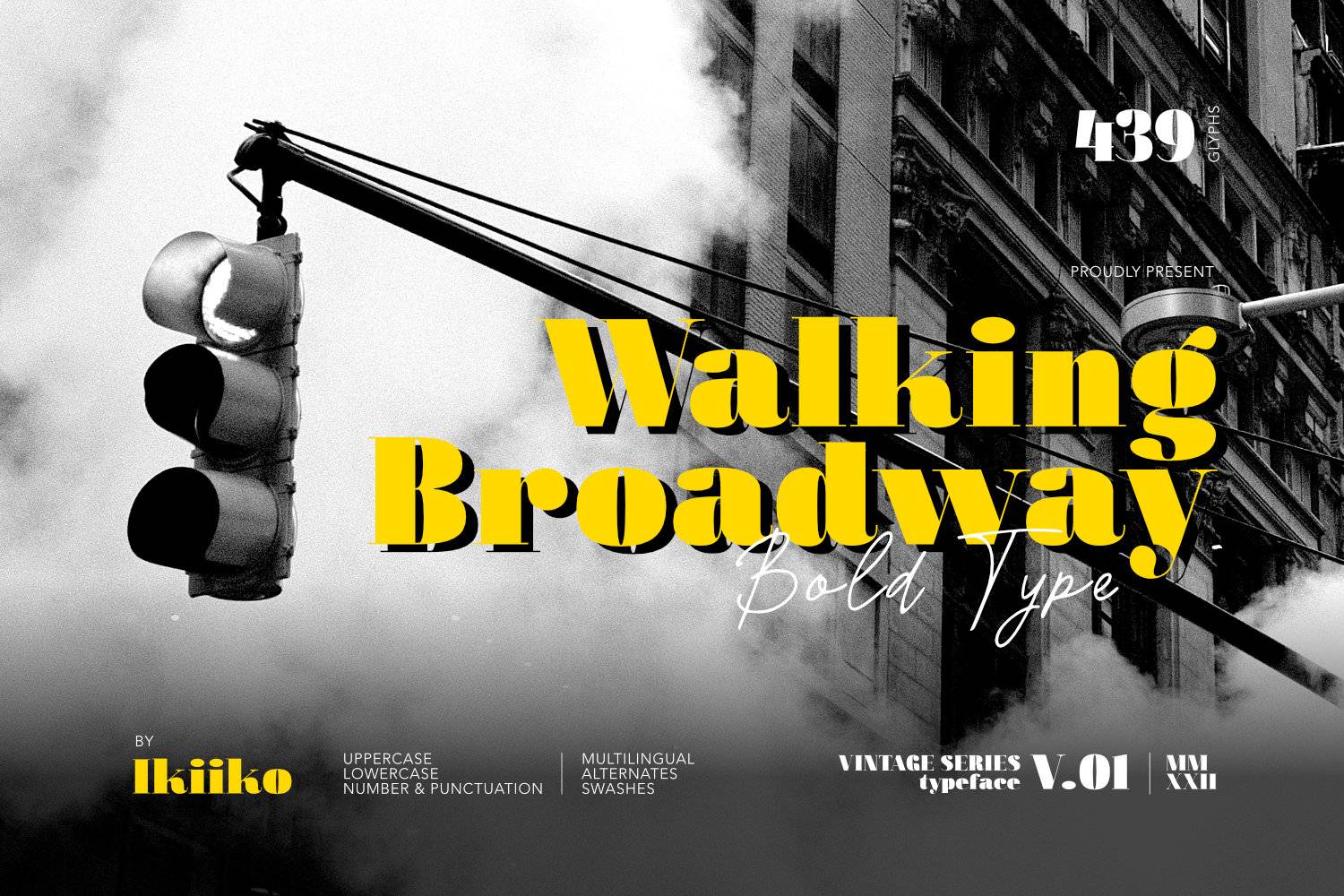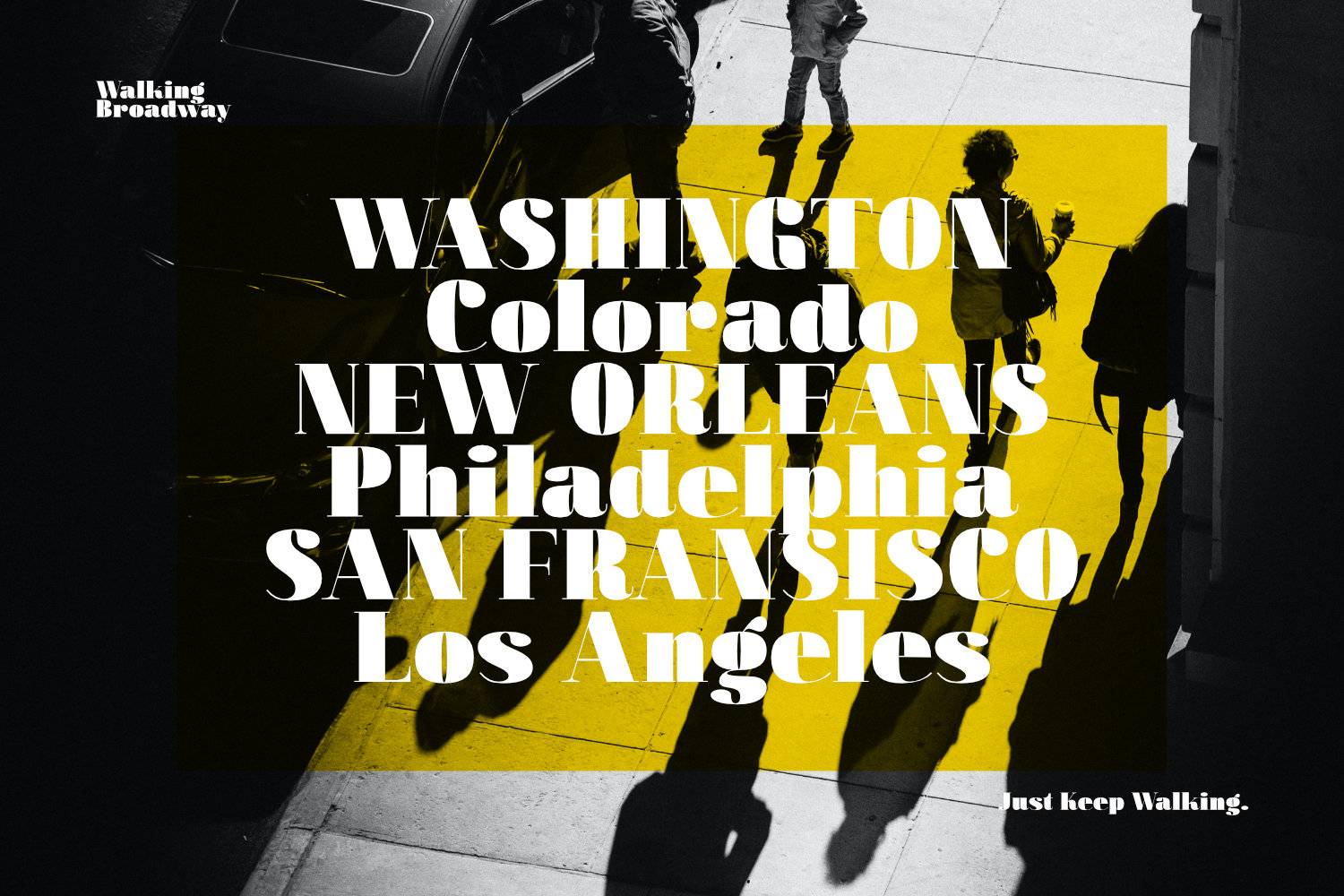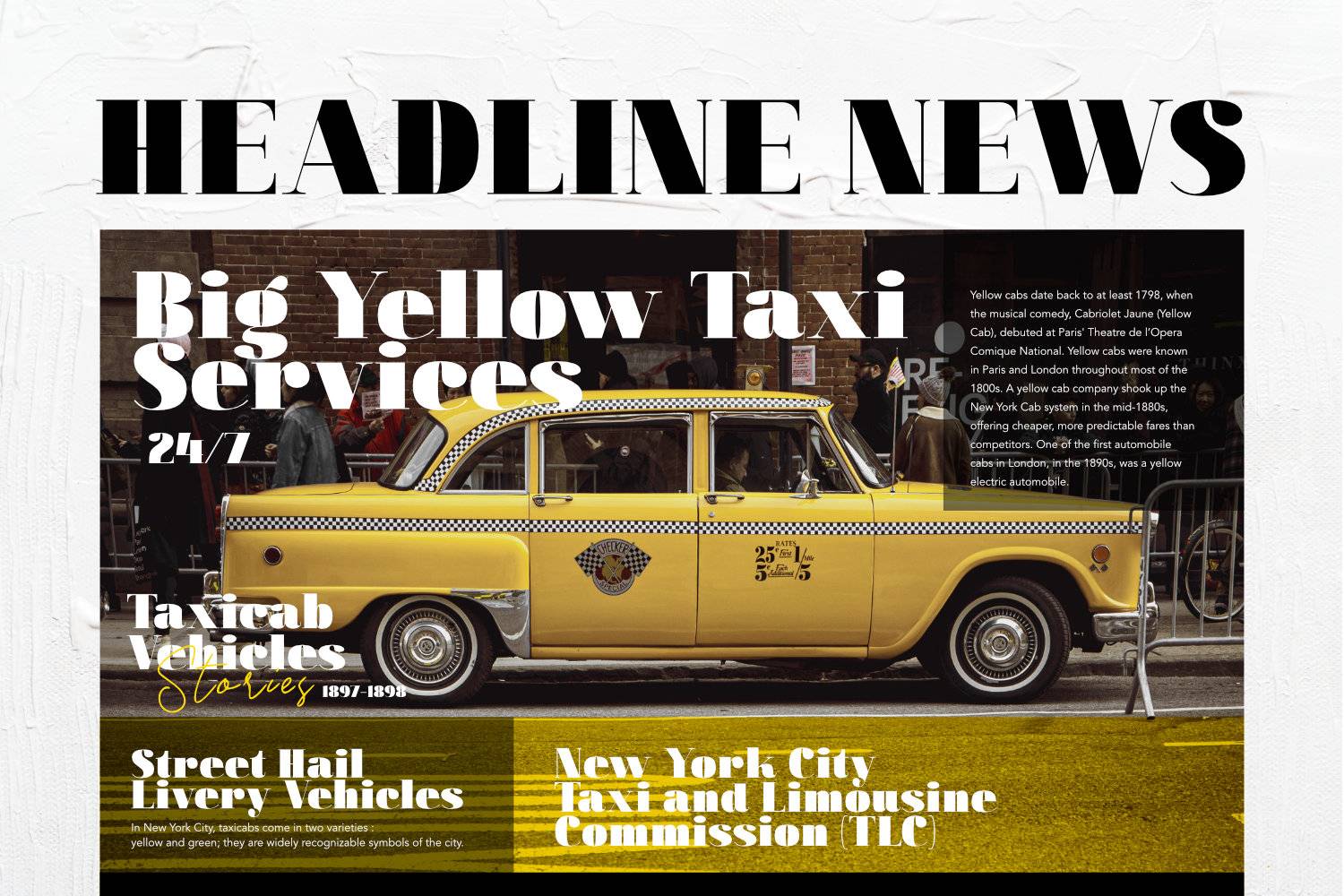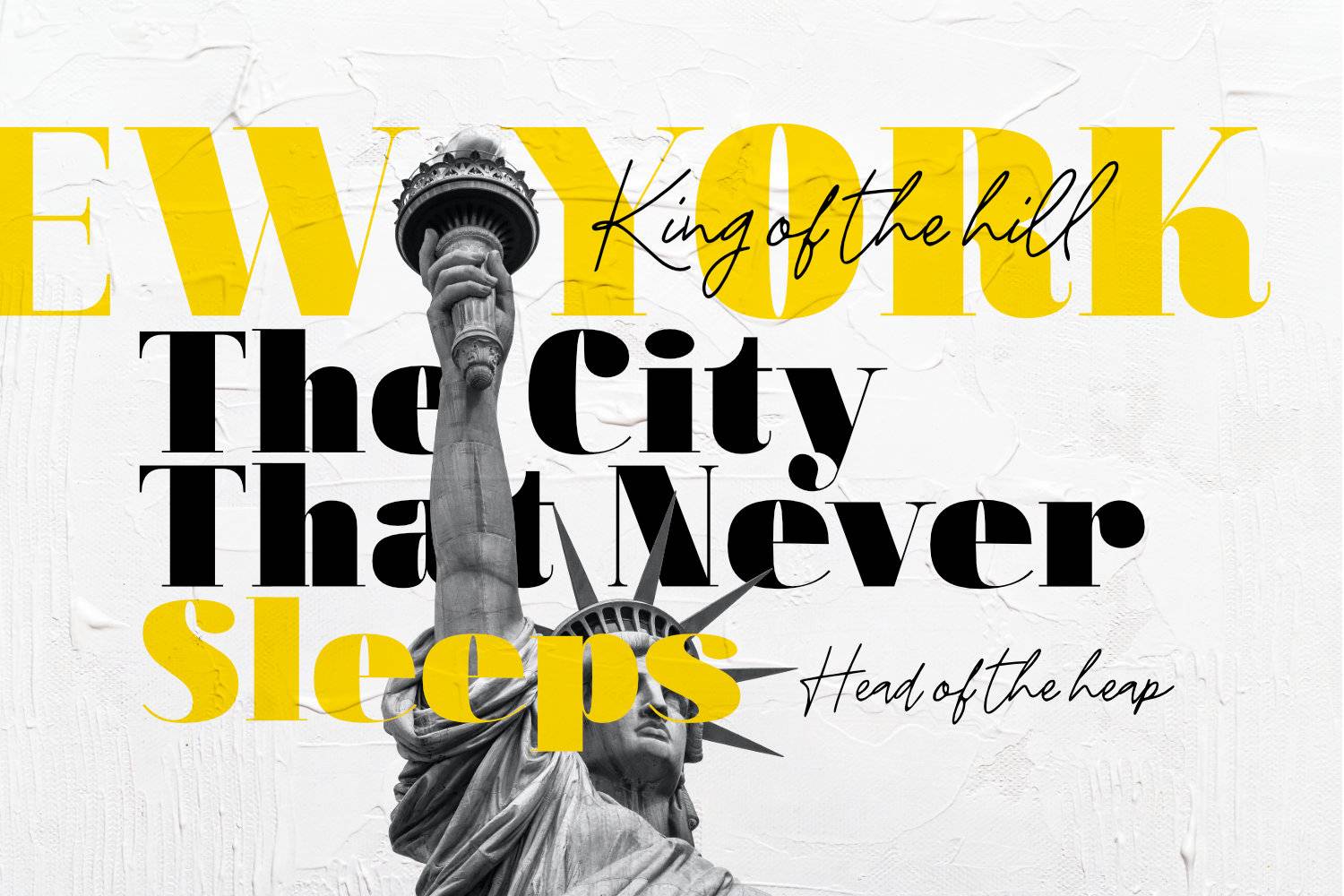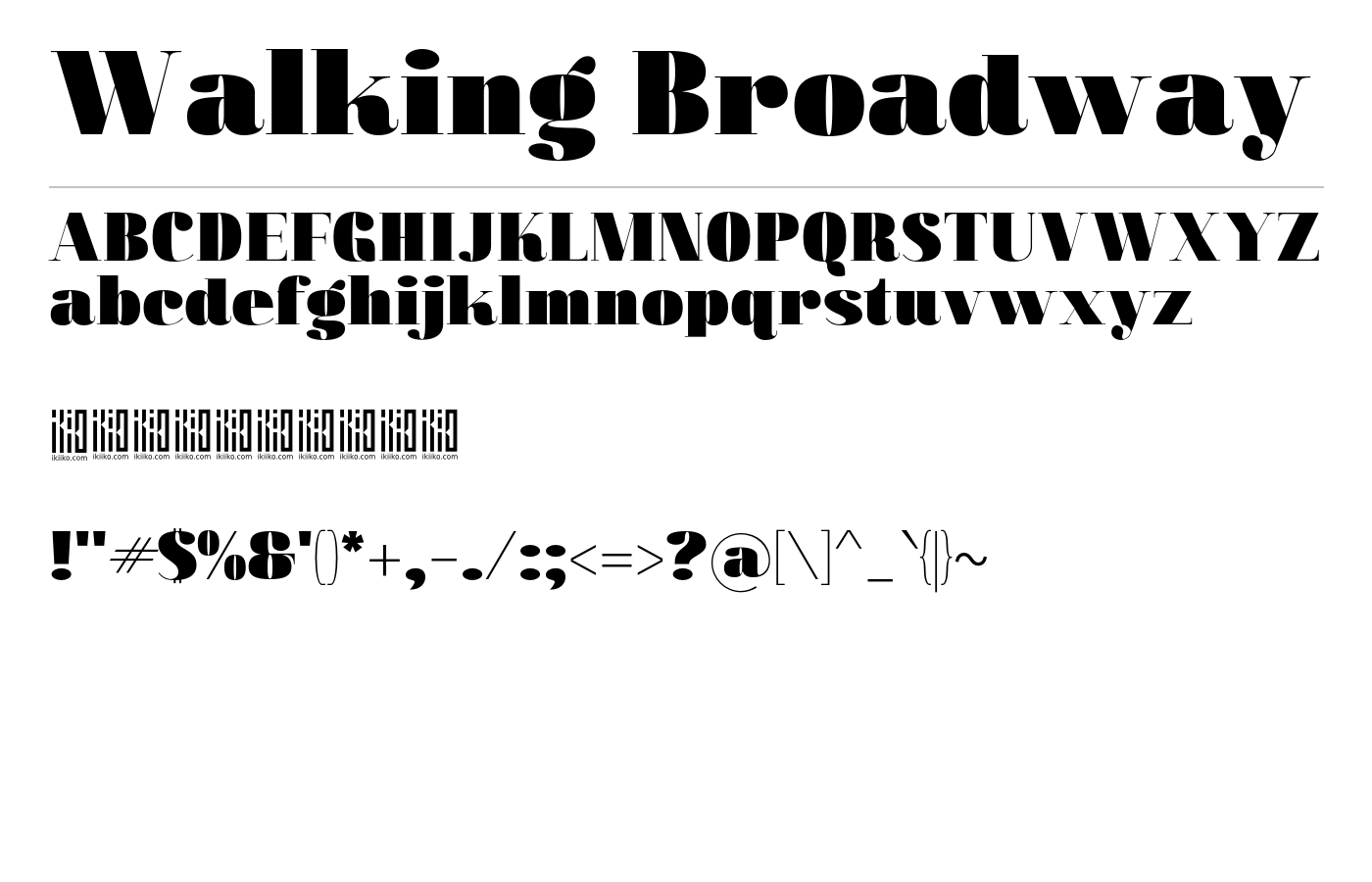
Walking Broadway is a bold serif typeface with a strong presence, featuring thick, blocky strokes contrasted by elegant thin serifs that evoke a vintage, theatrical flair. Its high contrast and distinctive letterforms make it perfect for creating impactful headlines and stylish branding, especially in fashion, luxury, and editorial design. This font’s dramatic style lends an air of sophistication and charm, ideal for projects seeking to capture attention with a classic yet modern vibe.